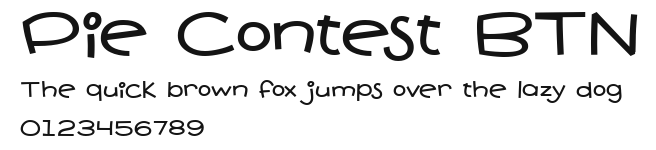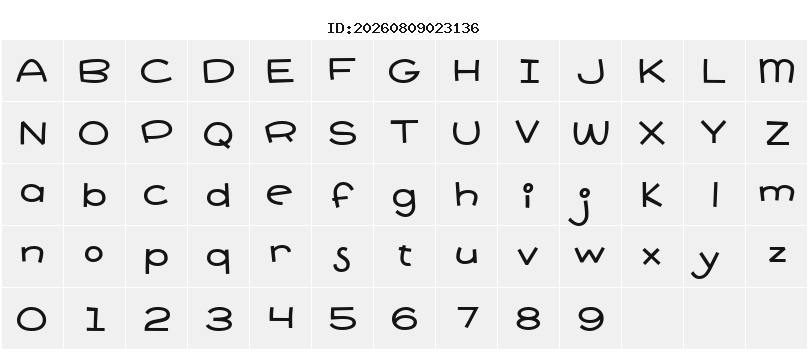
About Pie Contest BTN.ttf
Pie Contest BTN.ttf is a modern, elegant sans-serif font designed for ultimate readability and visual harmony. Perfect for branding, headlines, web design, and print materials.